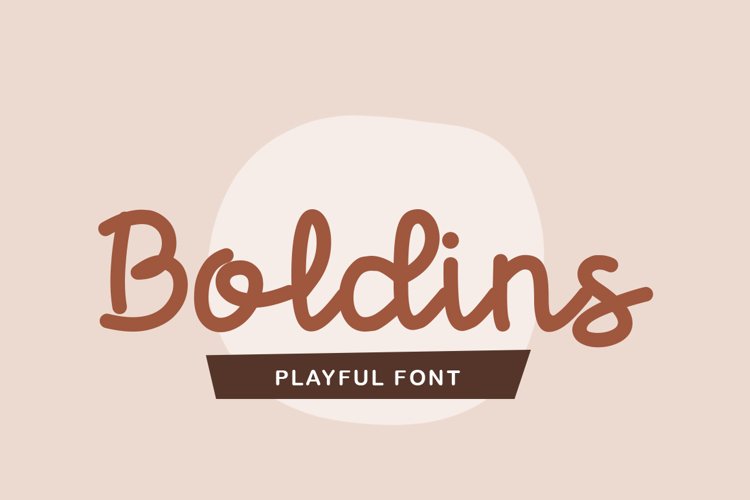
Boldins is a cute and natural handwritten font. It will add an incredibly joyful touch to your designs. Add this beautiful font to each of your creative ideas and notice how it makes them stand out!